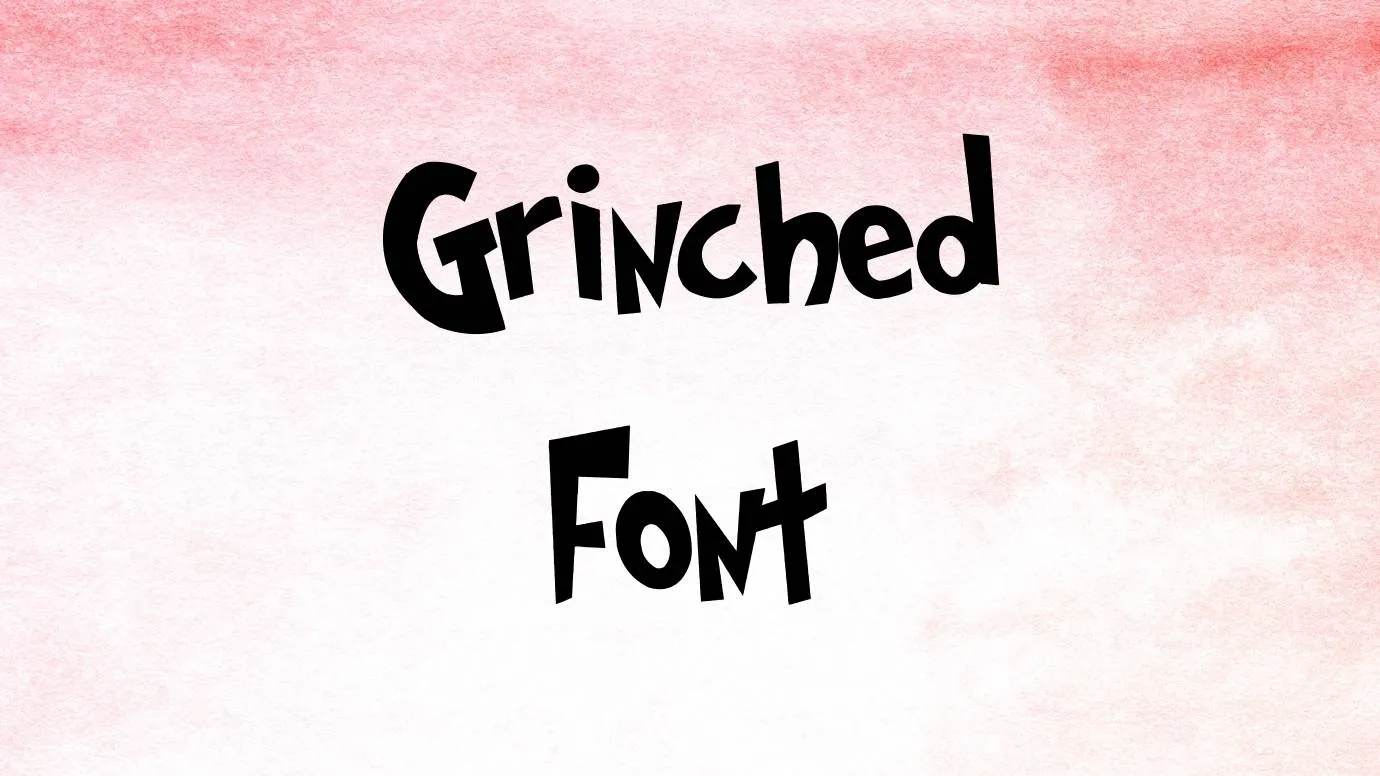
Grinched Font Family has 77 glyphs along with 2048 units per em. This is a fancy-type font that comes in 241 characters including punctuations, numerals, and some special characters.
This beautiful font has a free online generator tool facility that converts your simple text into unique and astonishing graphics. Designers can also use it for making pairing with matrix font. This typeface is so popular in fancy font lists.